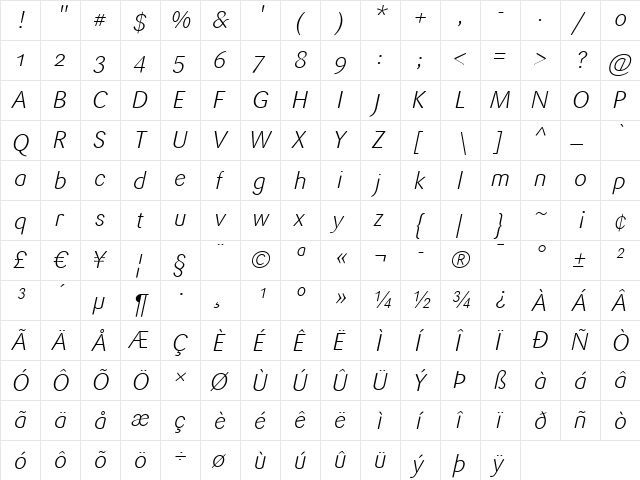
Sari Light Italic
Design Context for Sari Typeface
Sari is a composed and adaptable typeface that performs quietly and consistently across a wide range of design contexts. The slanted form adds forward momentum and visual energy. The delicate stroke weight brings airiness and refinement to layouts.
Pro Tip: Try Sari for annotation and caption copy alongside an upright companion — the contrast in angle creates a dynamic but ordered typographic system.